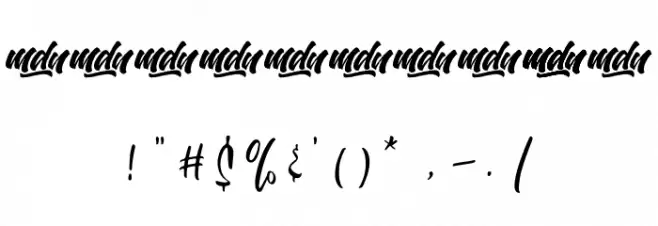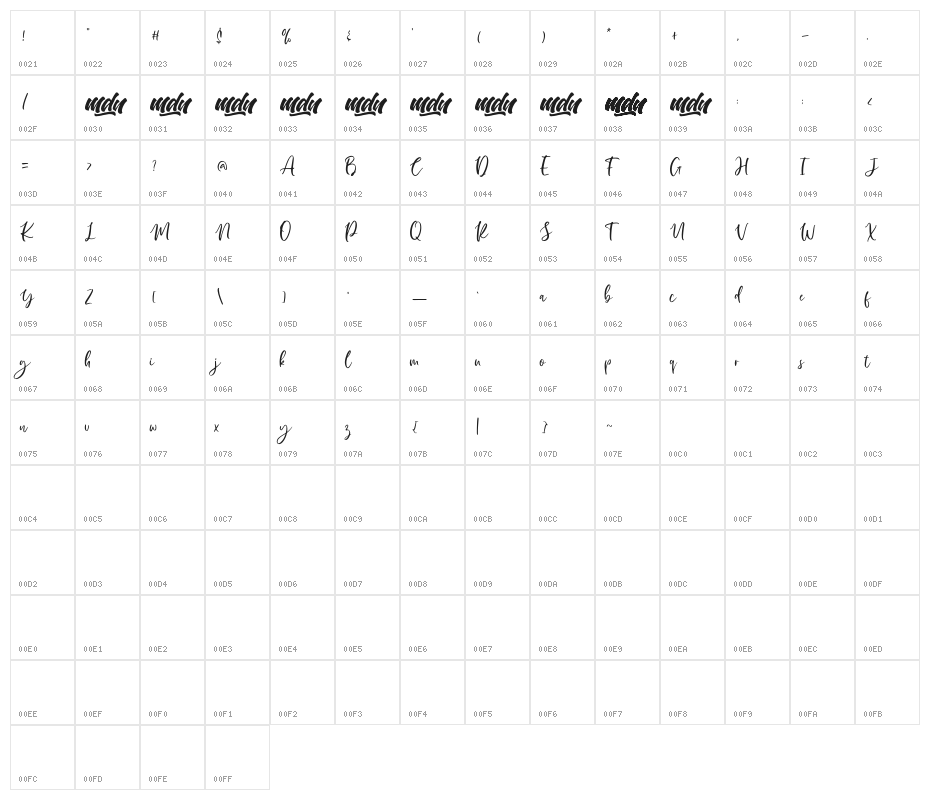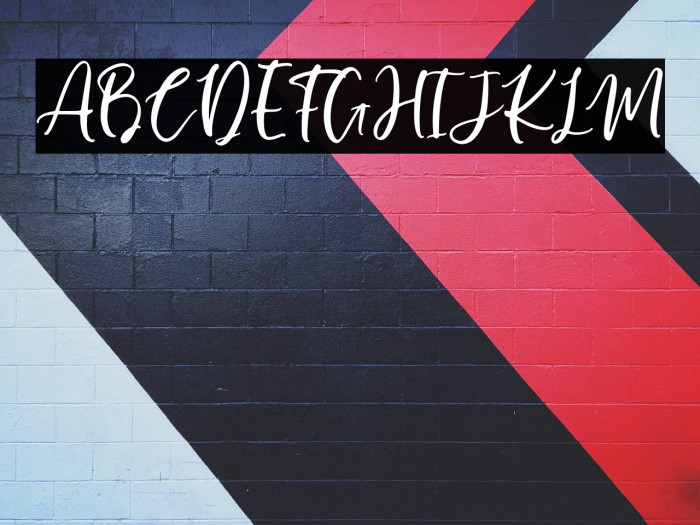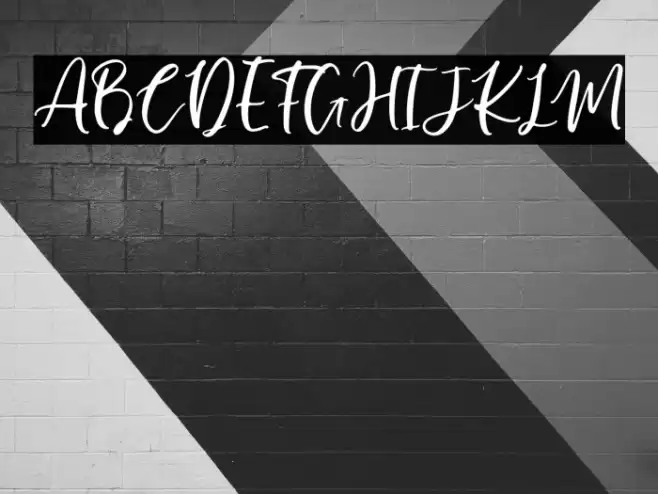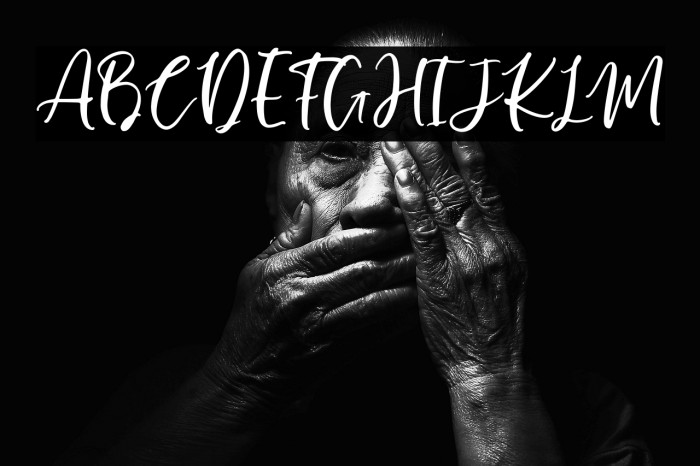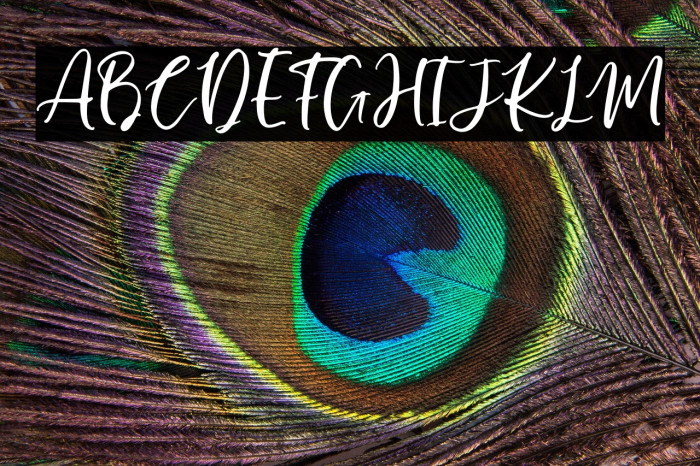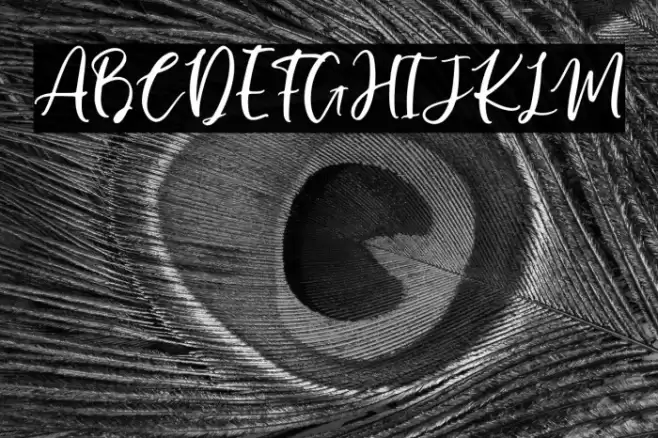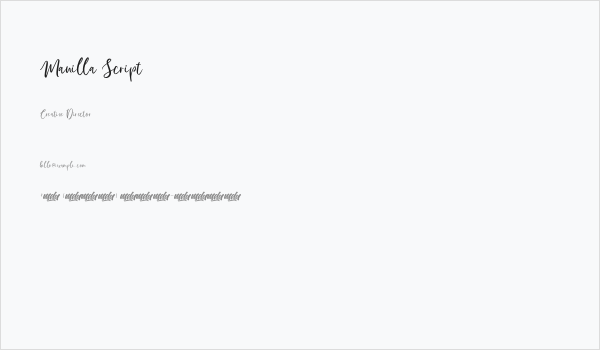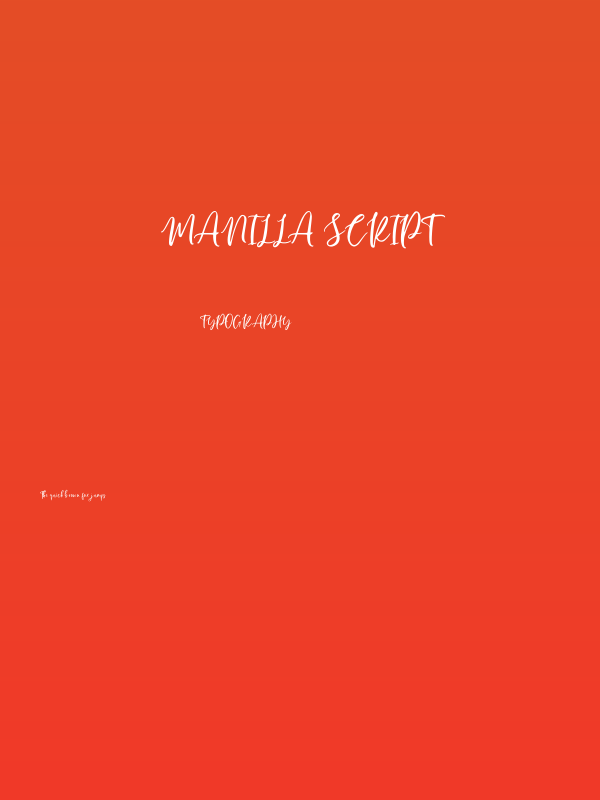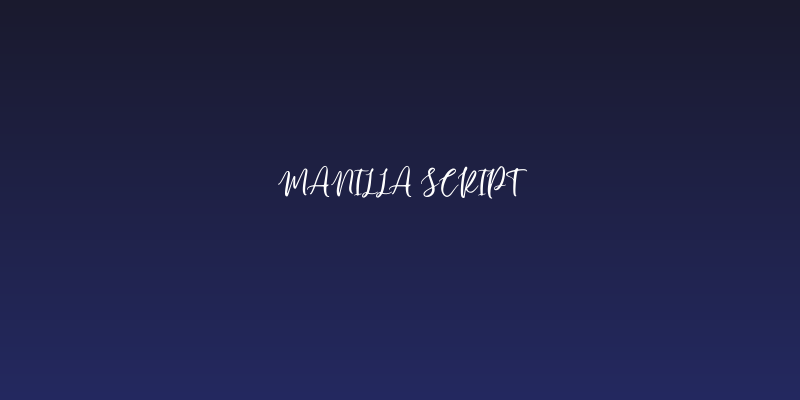
Manilla Script Font
Manilla Script Description
This font exhibits a flowing, cursive style with elegant, sweeping strokes that give it a handwritten appearance. The uppercase letters are bold and prominent, with distinctive loops and flourishes that add a touch of sophistication. The lowercase letters maintain a consistent style, with smooth connections between characters that enhance its script-like quality. The numerals and special characters are designed to match the overall aesthetic, featuring similar curves and embellishments. This font is ideal for projects that require a personal, artistic touch, such as invitations, greeting cards, or branding materials.